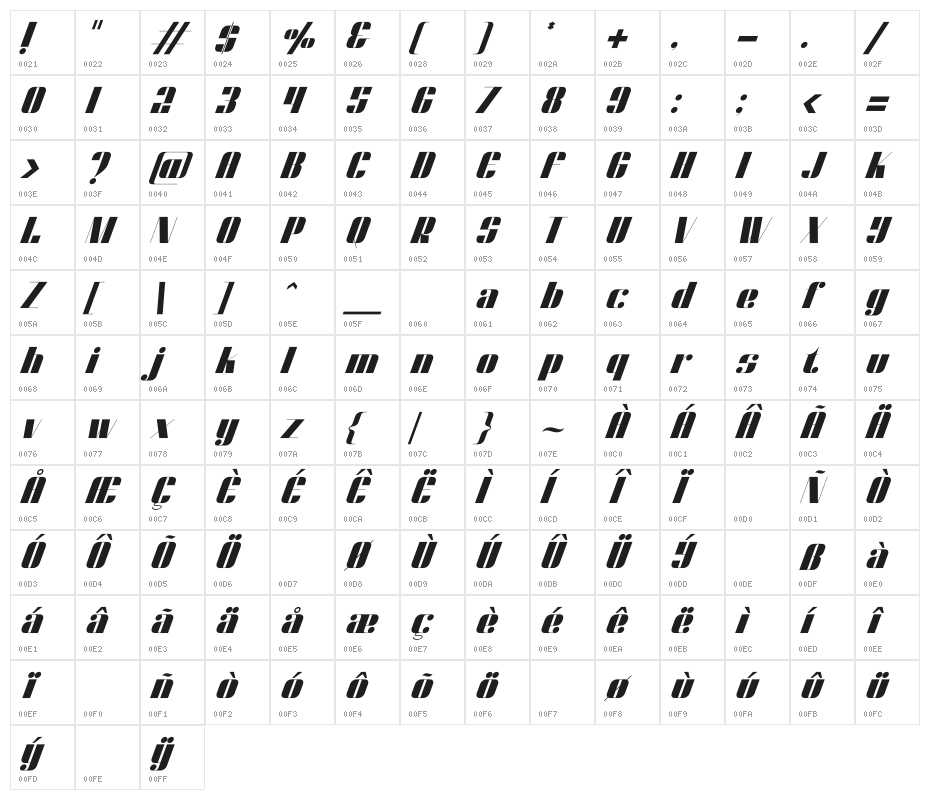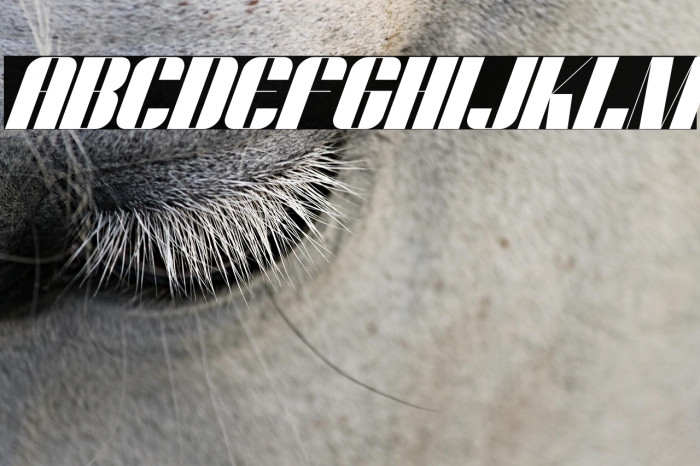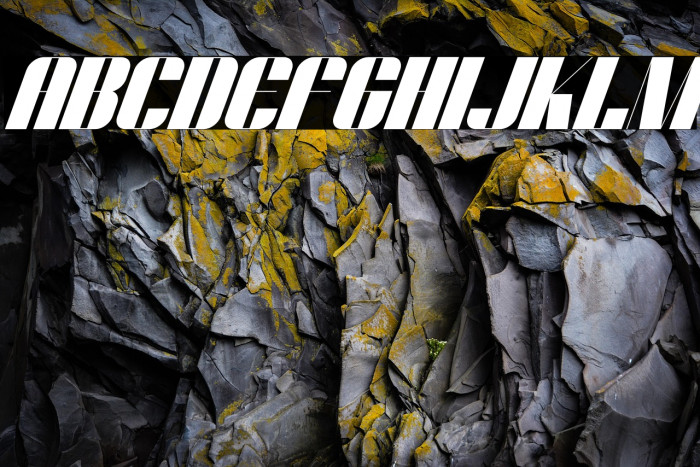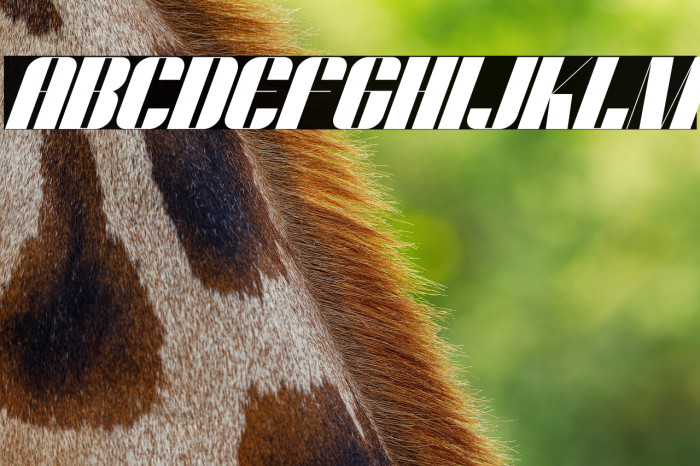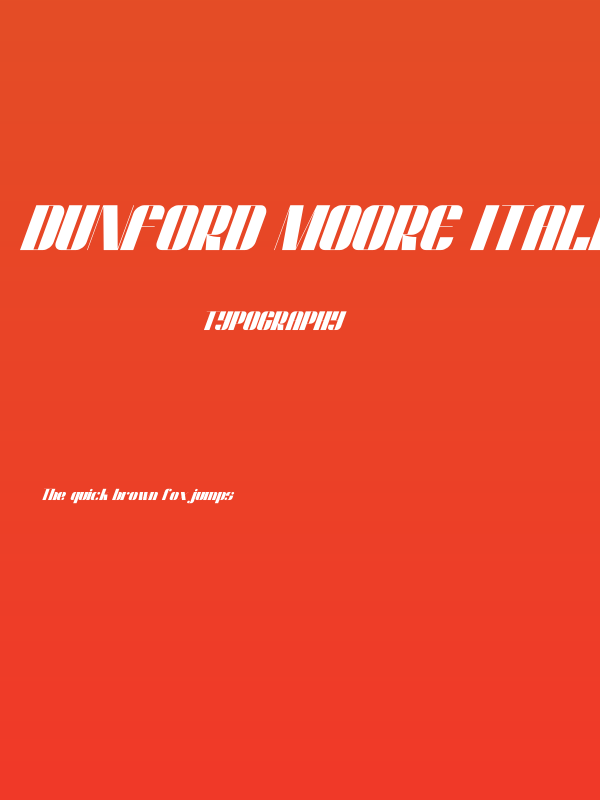
Dunford moore Italic Font
Dunford moore Italic Description
This font features a bold, italicized style with a modern and dynamic appearance. The characters are slanted, giving a sense of motion and energy. The strokes are thick and consistent, providing a strong visual impact. The uppercase and lowercase letters maintain a cohesive design, with rounded edges and smooth curves. The numbers and special characters are equally bold and follow the same italicized pattern, ensuring uniformity across all elements. This font is well-suited for projects that require a striking and contemporary look.